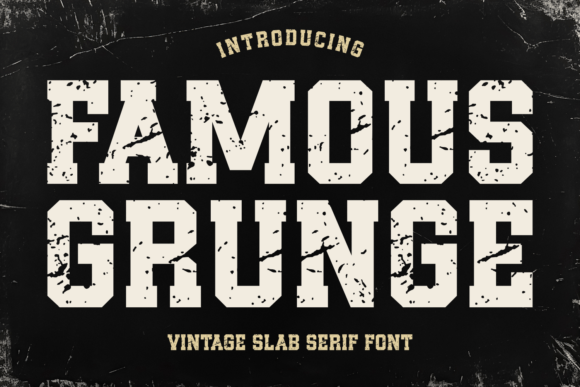
Famous Grunge Font
Unearth your next design project’s potential with the “Famous Grunge” font.
Famous Grunge is a versatile Slab Serif typeface with a vintage twist. This font encapsulates the authentic essence of the 70s, 80s, and 90s with a distinct, gritty, grunge aesthetic, setting it apart from traditional fonts. Whether crafting an alternative logo, a resonant book cover, or a magnetic brand identity, “Famous Grunge” delivers an enduring impression. Its thick, clean letters make it an excellent choice for quotes, cards, and apparel designs, while the rich, old-worldly style infuses a unique edge to magazine layouts and packaging concepts.
More so, this sublimation font facilitates multilingual typography that effortlessly integrates with Eastern European languages, seamlessly translating your grand ideas into tangible designs. Complementing seasonal trends and transforming ordinary projects into extraordinary creations, “Famous Grunge” is the font for forward-thinking designers seeking a bold, yet nostalgic twist to their work.